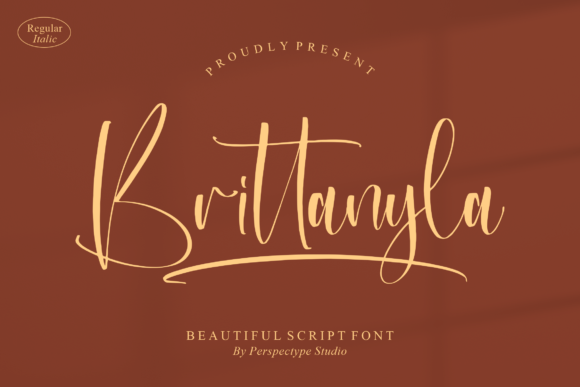
Unlocking Sophistication with the Brittanyla Font
As designers, we’ve all been there – staring at a blank canvas, waiting for that spark of creativity to strike. It’s the moment when a font, a color, or a simple idea comes together to bring a project to life. For me, that moment happened when I discovered the Brittanyla Font. Its elegant script and luxurious feel instantly elevated my design game, and I knew I had to share it with the world.
Brittanyla Font is a beautiful, sophisticated script font that’s perfect for adding a touch of luxury to your branding and logo design projects. With its PUA encoding, you’ll have access to all the amazing glyphs and ligatures you need to create stunning designs. Whether you’re working on a high-end fashion brand or a luxury lifestyle campaign, Brittanyla Font is the perfect tool to help you create something truly special.
Brittanyla Font Key Features
- Font Family: Brittanyla Font is a modern script font designed to add a touch of elegance to various designs.
- Unique Characteristics: This font features a unique blend of script and modern elements, making it perfect for creating eye-catching headlines, titles, and other display text.
Designer Review: Brittanyla Font
First impressions are everything, and Brittanyla Font definitely makes a statement. The elegant script design is reminiscent of classic calligraphy, and the flowing lines ✨ make it perfect for adding a touch of sophistication to your designs.
The font’s versatility is another major plus – it’s suitable for a wide range of applications, from wedding invitations to branding materials. It’s also incredibly easy to read, making it an excellent choice for body text.
- ✨ Elegant script design perfect for adding a touch of sophistication
- ✨ Versatile and suitable for a wide range of applications
- ✨ Easy to read, making it perfect for body text
- ⚠️ Limited font sizes available (may require purchasing additional sizes)
- ⚠️ Not ideal for headlines or titles (may be overpowered by other fonts)
- ⚠️ May not be suitable for digital applications with small font sizes (due to its cursive nature)
Overall, I’m impressed with Brittanyla Font’s elegance and versatility. While it may have some limitations, it’s an excellent choice for designers looking to add a touch of sophistication to their designs.
The Brittanyla Font is ideal for use in creative projects, such as:
– Brochures and flyers
– Branding materials
– Wedding invitations
– Digital signage
Q: Does Brittanyla support Unicode characters?
Yes, Brittanyla supports a wide range of Unicode characters, including Latin, Greek, and Cyrillic scripts. This allows you to use the font in a variety of languages and contexts.
Q: Can I customize Brittanyla to create a new font?
Yes, Brittanyla is a variable font, which means you can adjust its weight, width, and other parameters to create new font variations. However, please note that any customizations should be done within the bounds of the original font’s license agreement.